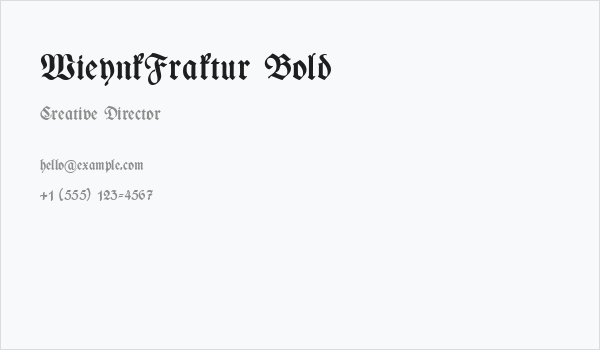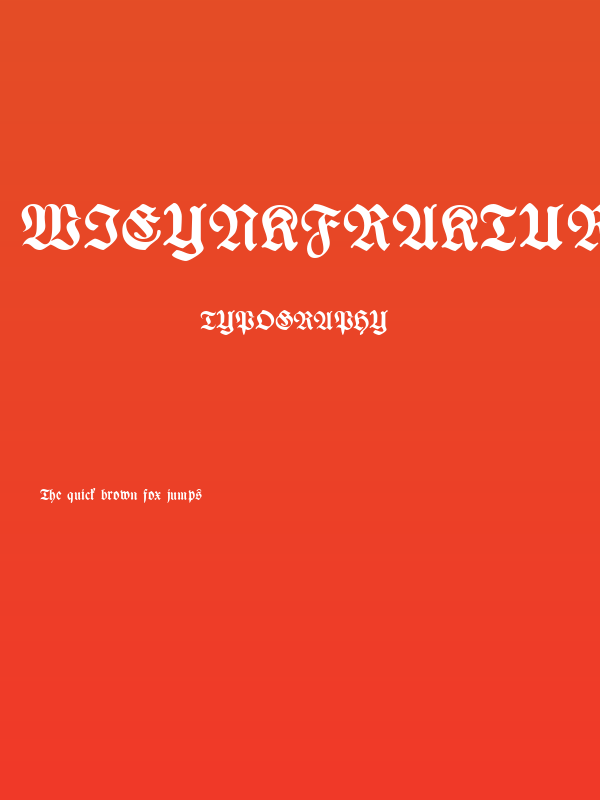
WieynkFraktur Bold Font
WieynkFraktur Bold Description
This font embodies the traditional Blackletter style, characterized by its bold, intricate, and ornate letterforms. The uppercase letters exhibit a strong, angular structure with elaborate serifs and decorative elements, while the lowercase letters maintain a consistent flow with sharp edges and pointed terminals. The numerals are equally stylized, featuring a distinctive medieval aesthetic. Special characters are crafted with the same attention to detail, enhancing the font's overall historic and formal appearance. This font is ideal for projects that require a touch of elegance and tradition, such as certificates, invitations, or branding that seeks to evoke a sense of heritage and sophistication.
| Proposed Projects | Ideal for certificates, invitations, branding, and projects requiring a historic or elegant touch. |